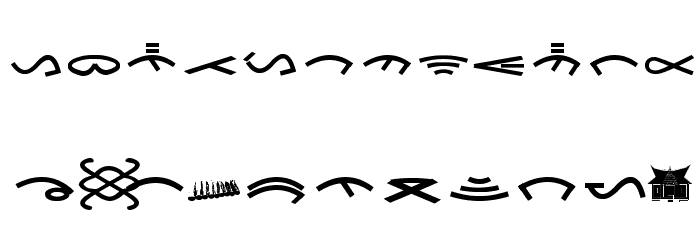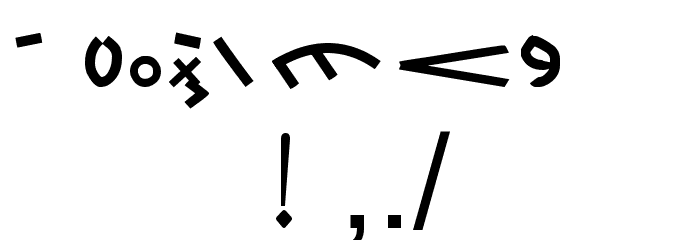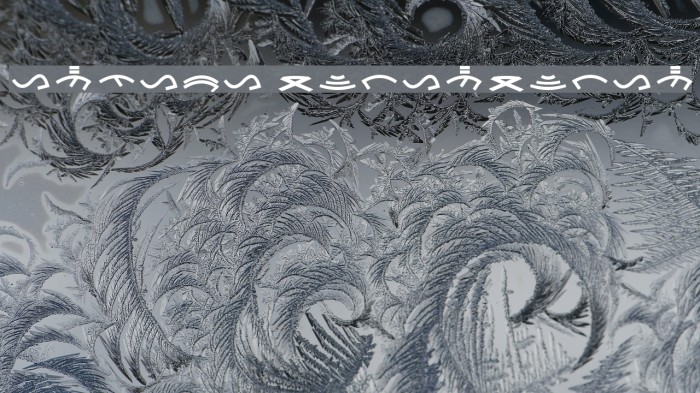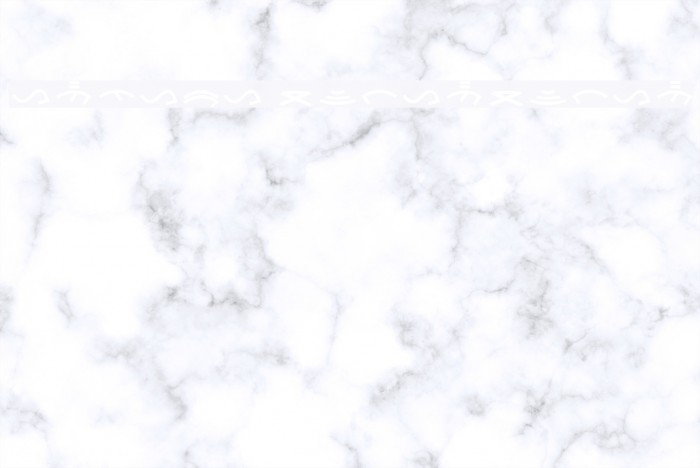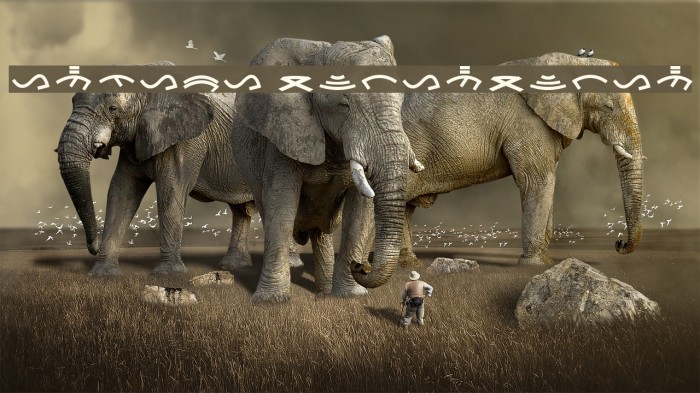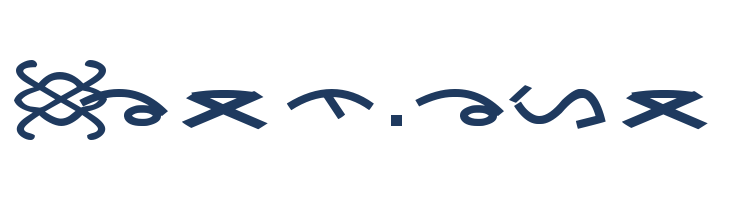
Aksara Tulak-tulak Font
This is not a valid font. The image contains a series of decorative symbols and illustrations that do not correspond to a standard alphabet or numeric system. The characters are highly stylized and appear to be more ornamental than functional for typical text representation.
The image contains decorative symbols, not a standard font.
- Proposed Projects: This set of symbols could be used for artistic projects, decorative designs, or as part of a fictional writing system in creative works.
- Use Case: Artistic designs, fictional writing systems.